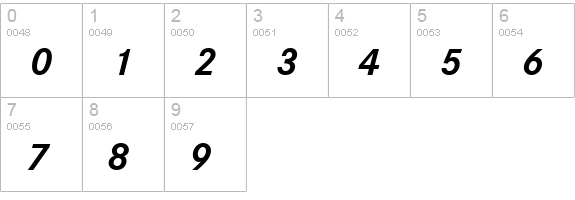
CorpoSDem Bold Italic Font Details
CorpoSDem Bold Italic is a strong, high-contrast, italic variant in the CorpoSDem typeface family \xE2\x80\x94 well suited to headlines, attention-grabbing titles, and strong calls-to-action.
CorpoSDem Bold Italic is a modern and sleek typeface that exudes confidence and professionalism. Its bold and italic styling adds a touch of flair to any design project, making it perfect for headers, titles, and emphasis. The sharp and clean lines of this font give it a sophisticated and contemporary look, making it ideal for corporate branding, advertising, and editorial design. Best of all, CorpoSDem Bold Italic is available for free download at FontsMarket.com. This means you can easily access this high-quality font and use it in your projects without any cost. Whether you are a designer, marketer, or student, CorpoSDem Bold Italic is a versatile and stylish font that will elevate your work to the next level. Download it today and add a touch of elegance to your designs!